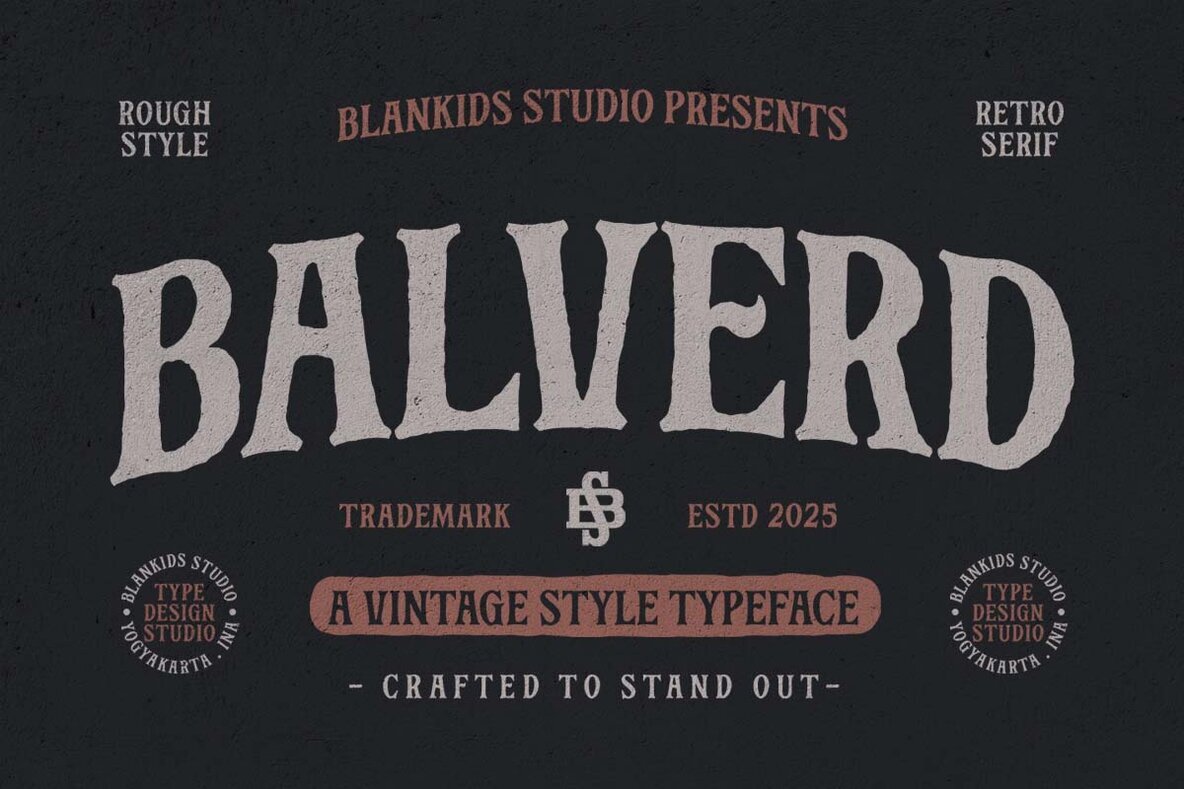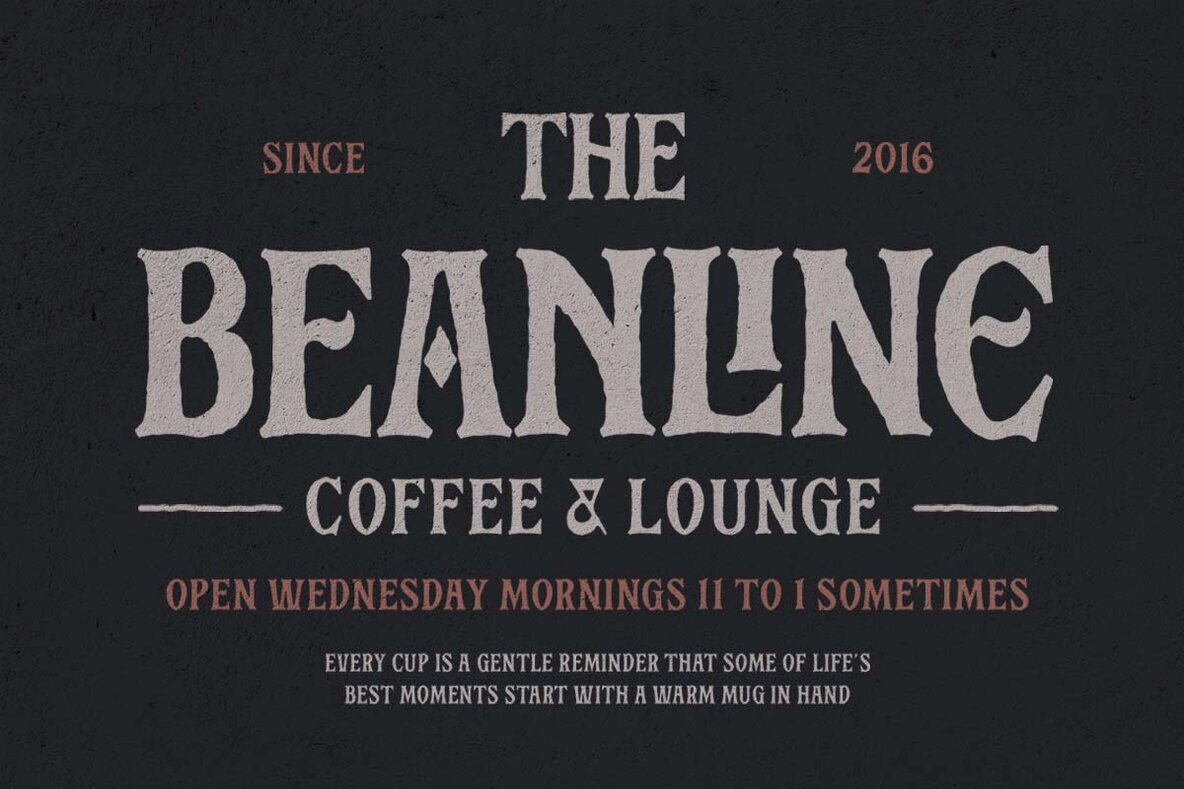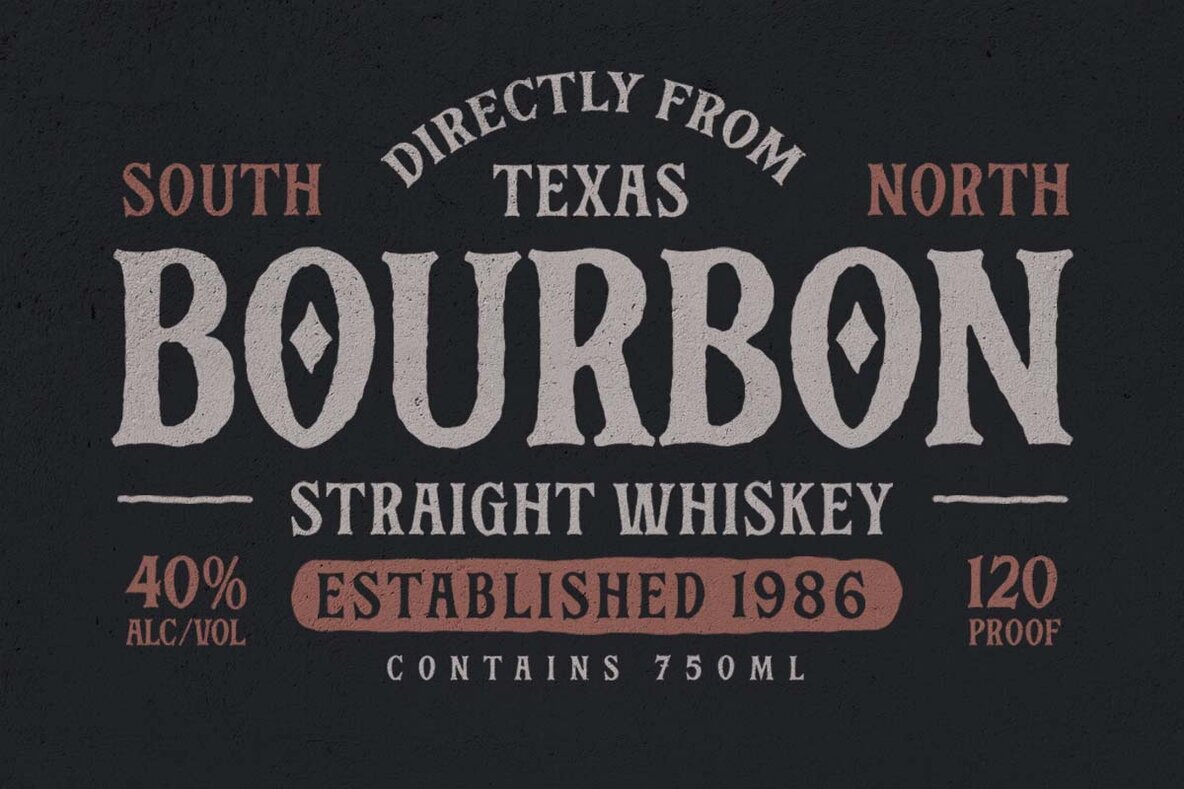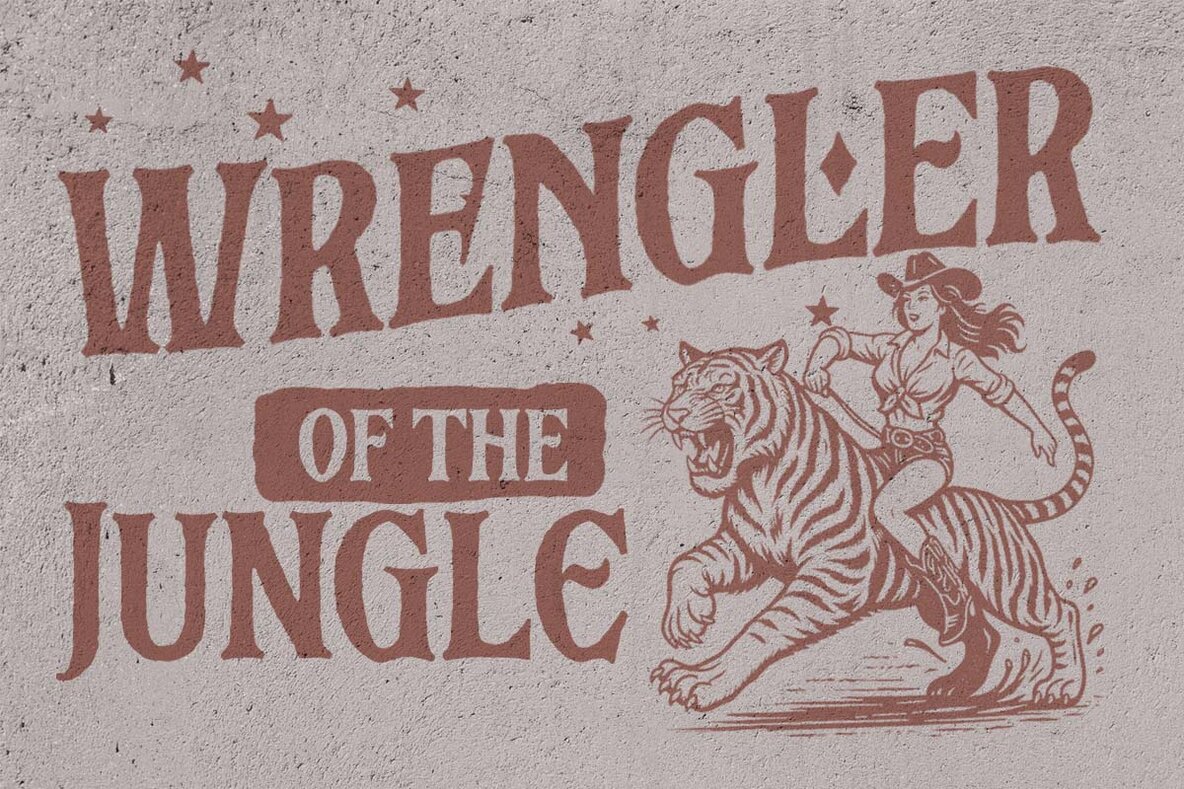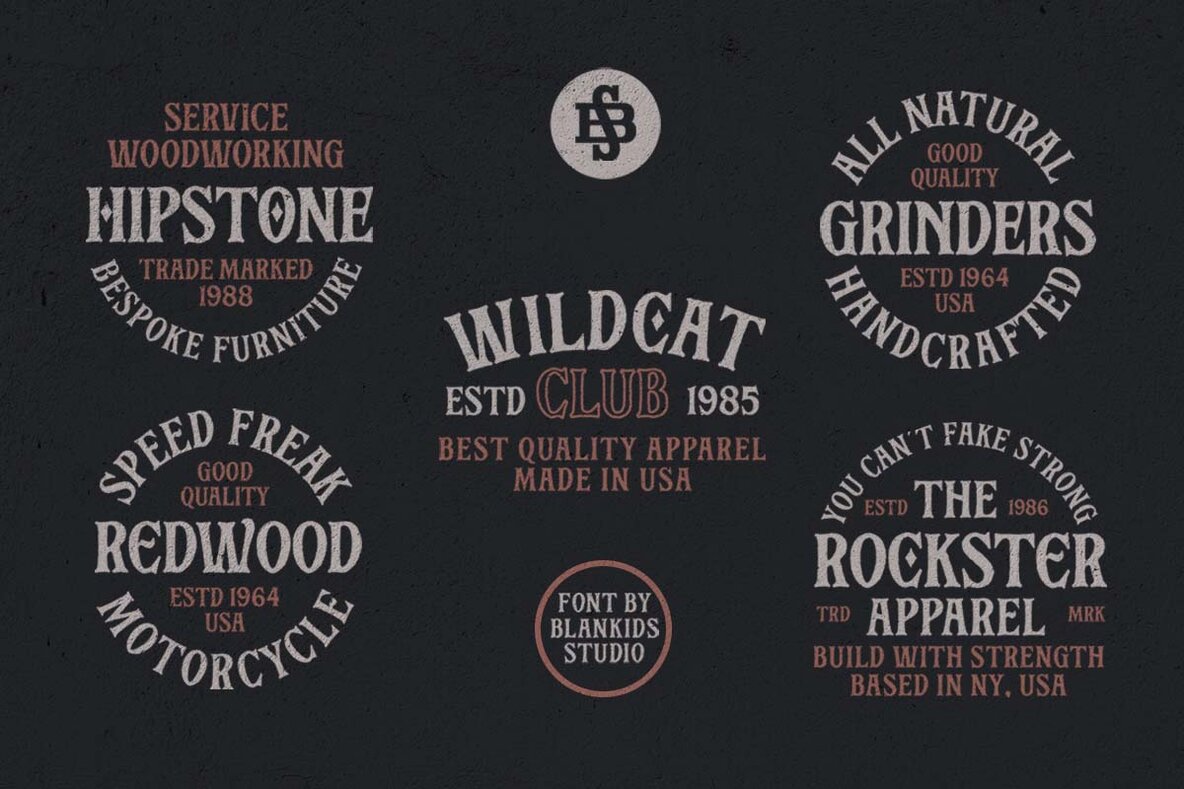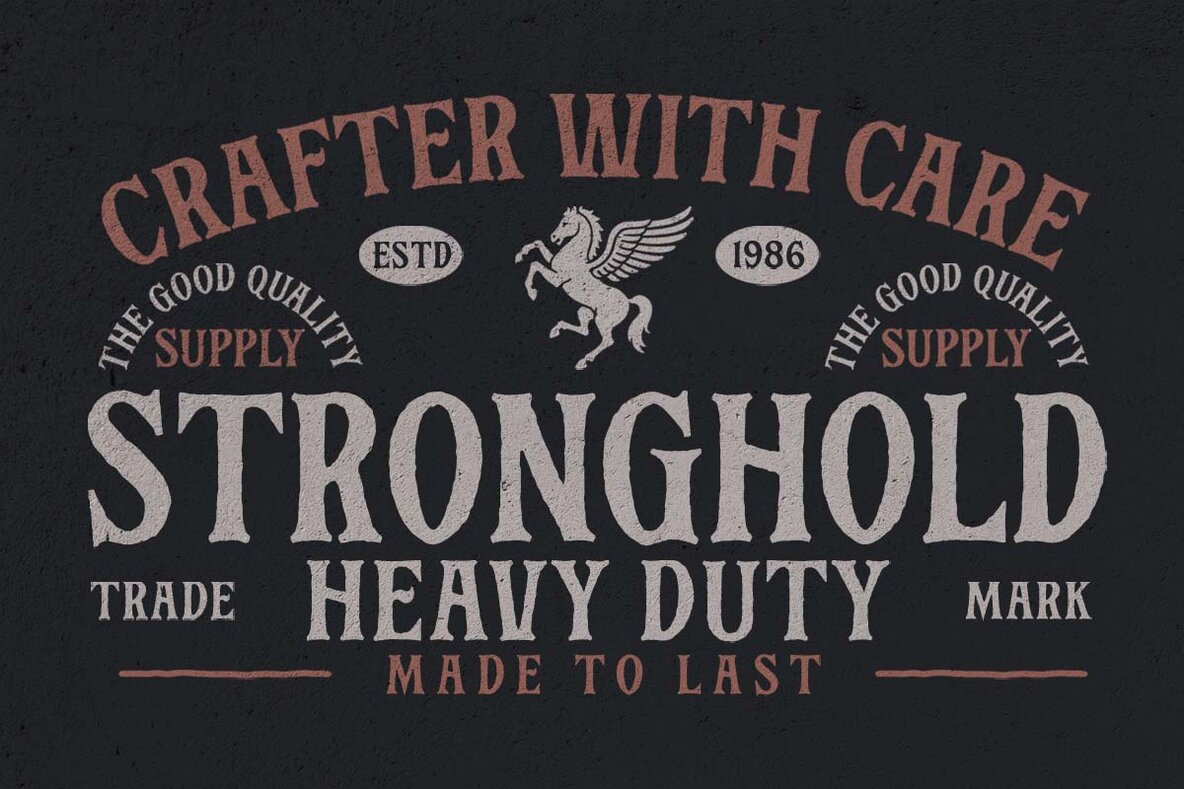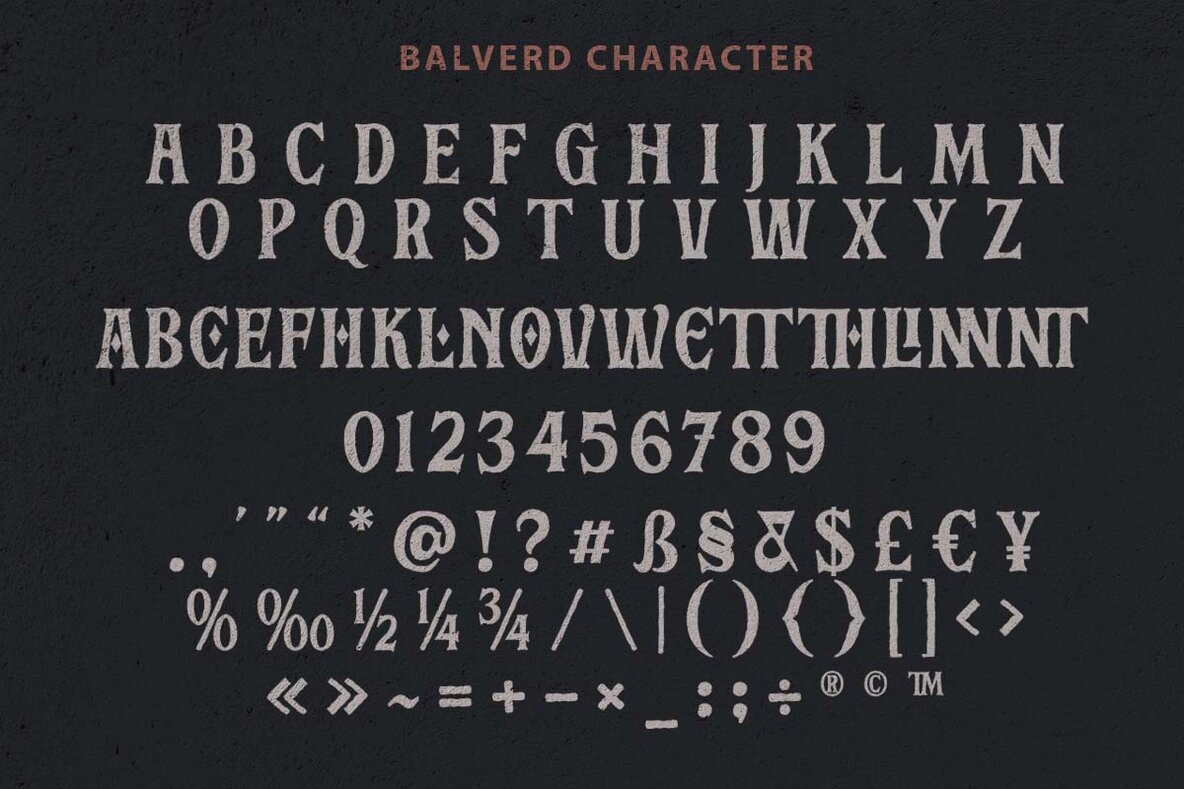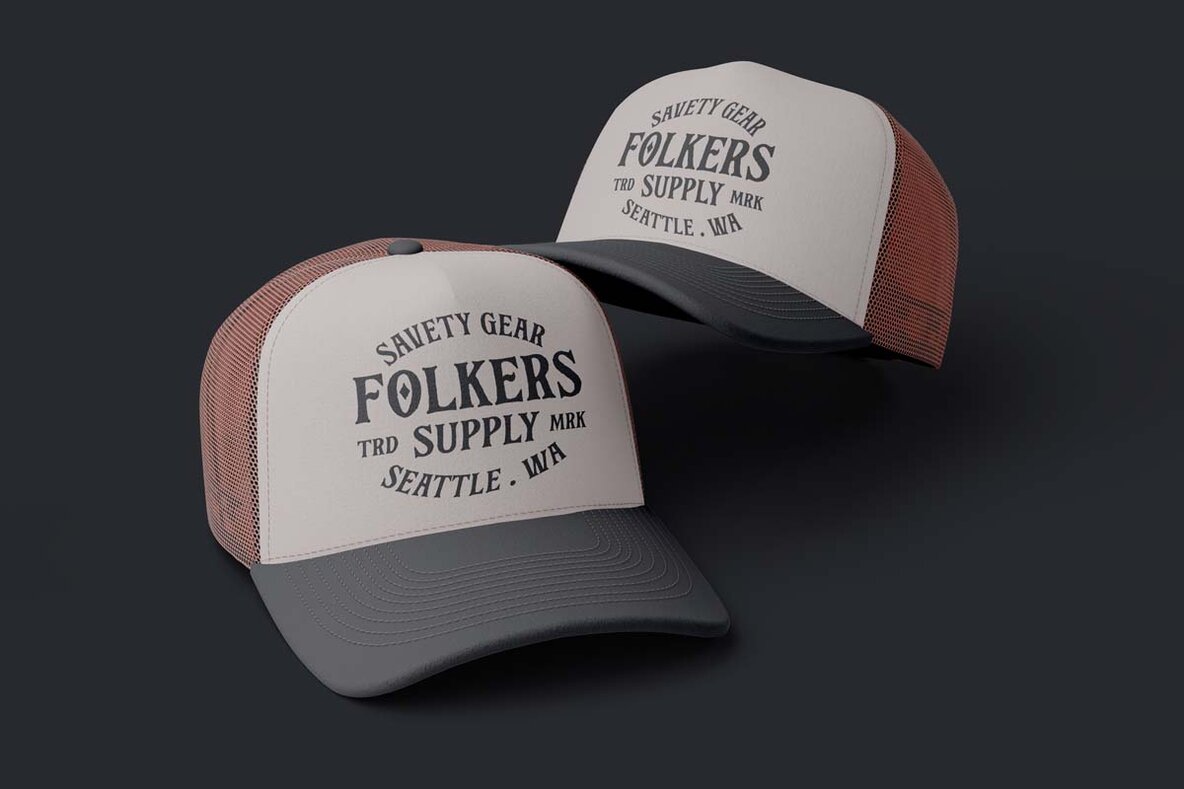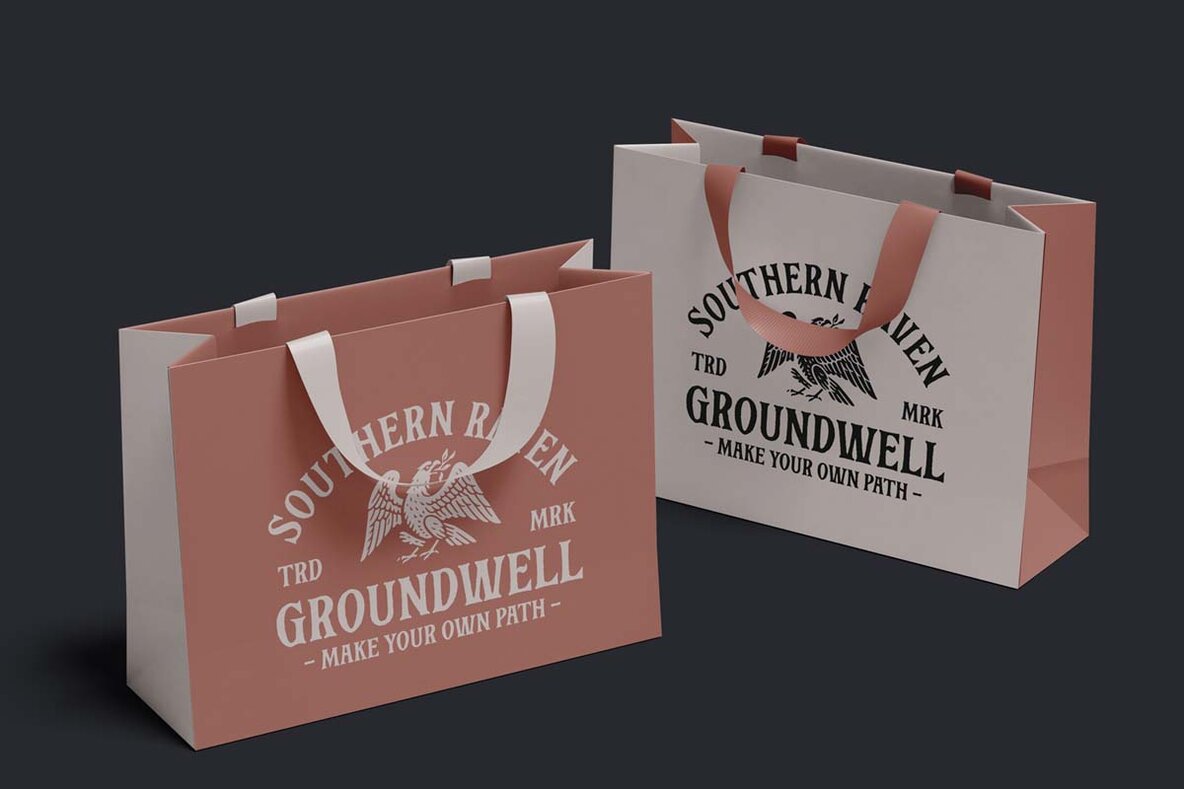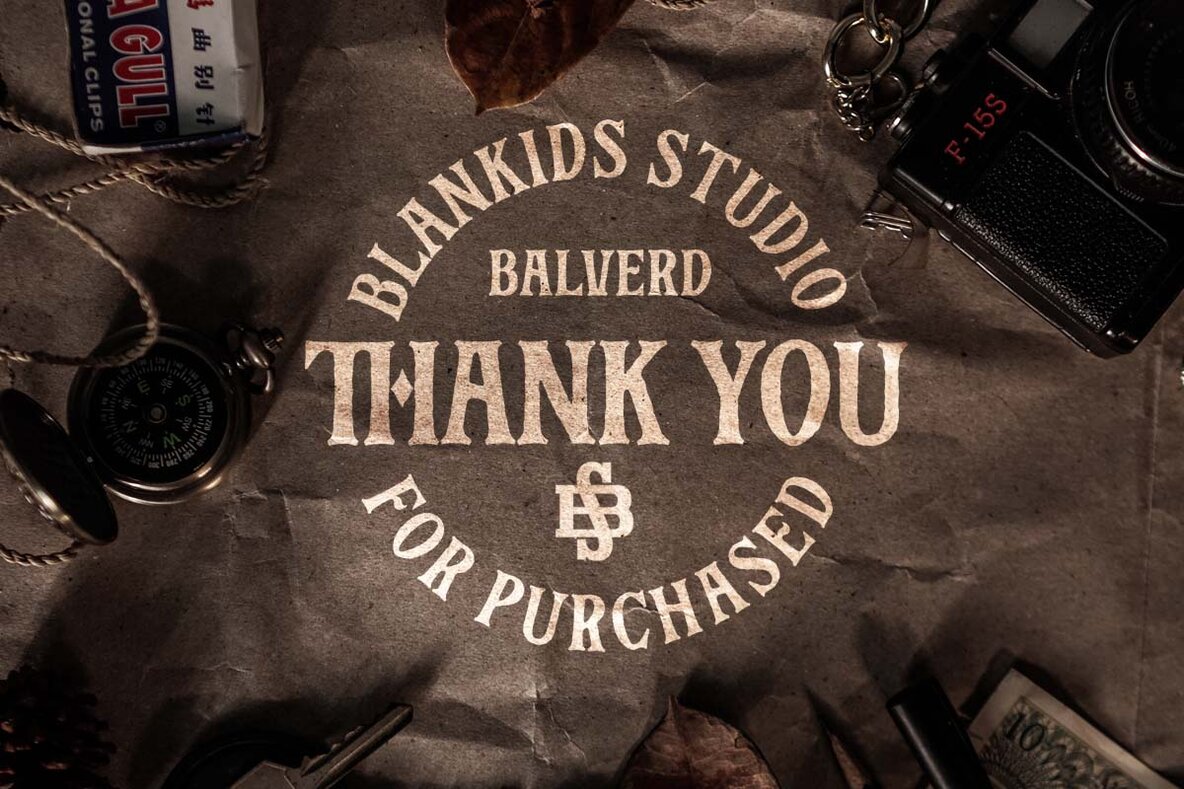
Balverd Font
Balverd Regular
Discover the timeless charm of Balverd, a vintage serif font by Blankids Studio, designed to infuse character into your branding projects. With its classic style, Balverd is ideal for logotypes, watermarks, posters, and product packaging. Enjoy a full set of vintage-styled uppercase and lowercase letters, numerals, and punctuation that add a touch of nostalgia to any creative endeavor. Elevate your designs with Balverd's sophisticated aesthetics and versatile OpenType features—perfect for enhancing creativity across multiple platforms. Explore your design potential and make a statement with every project.Balverd Vintage Serif Font